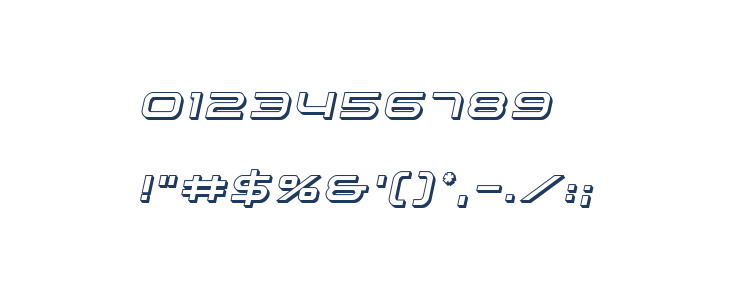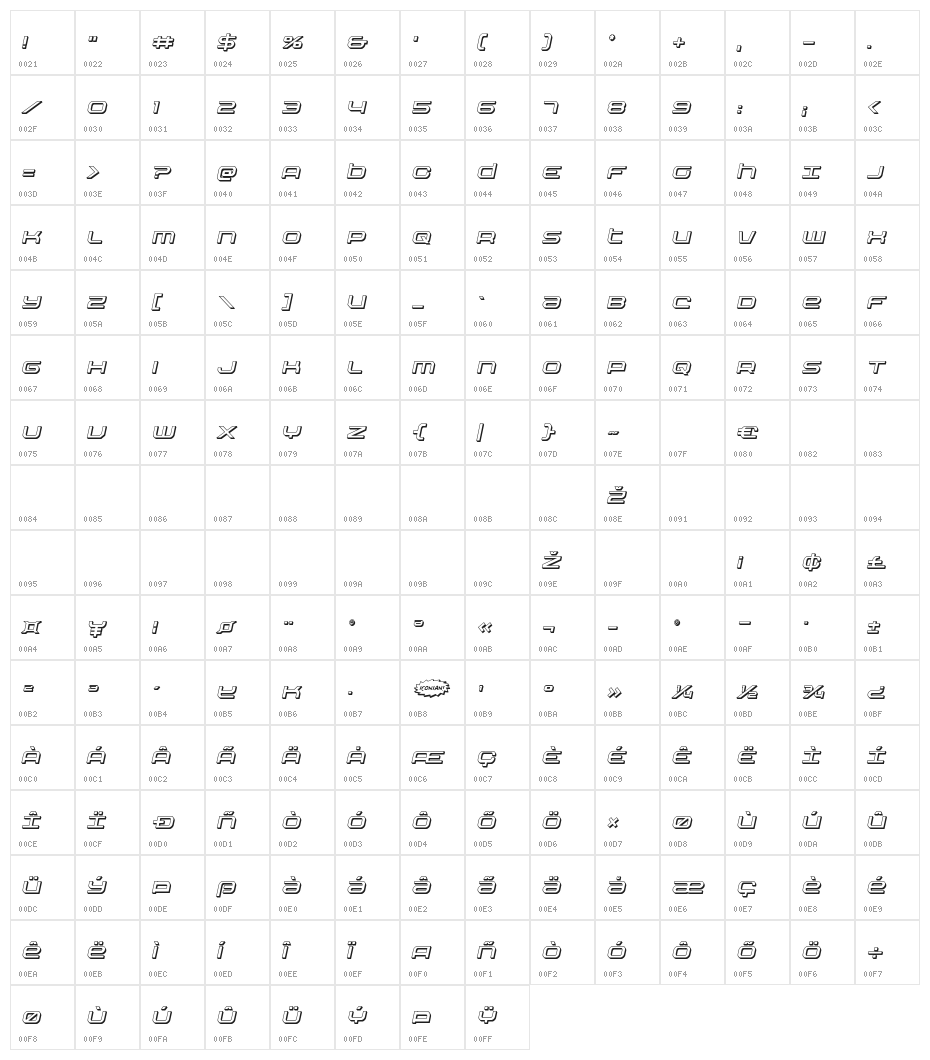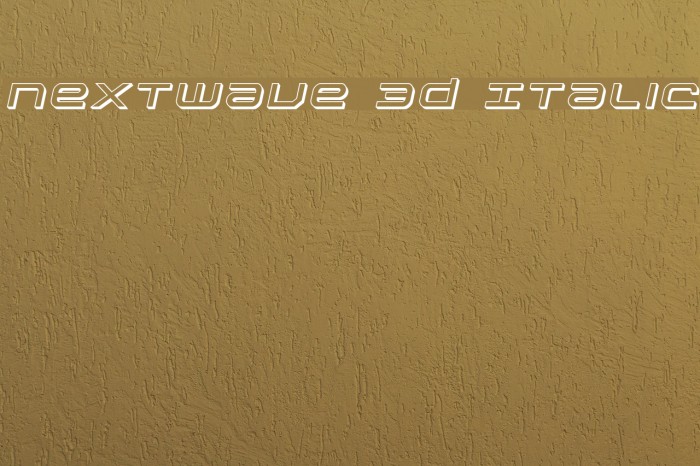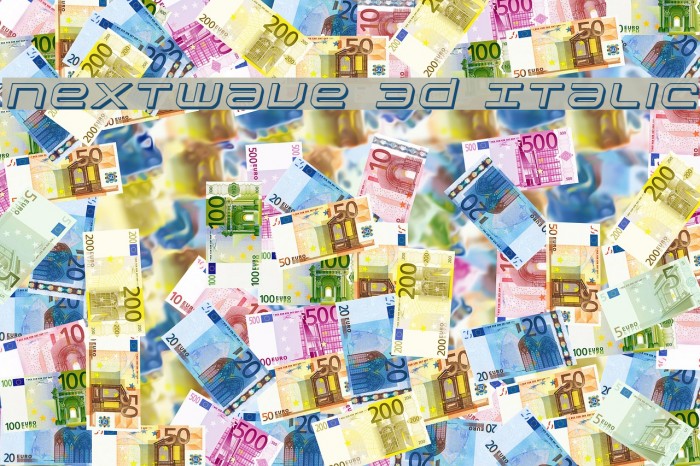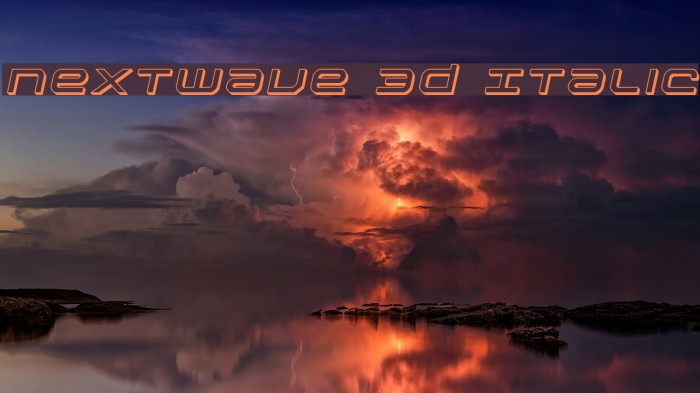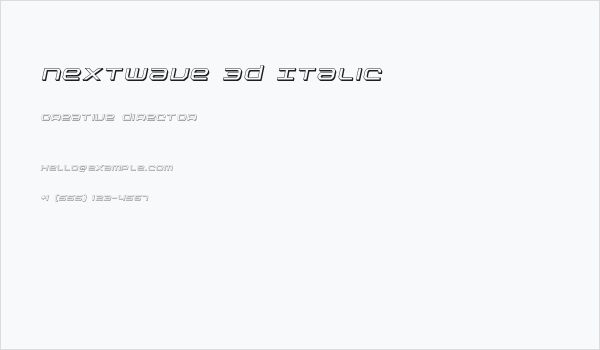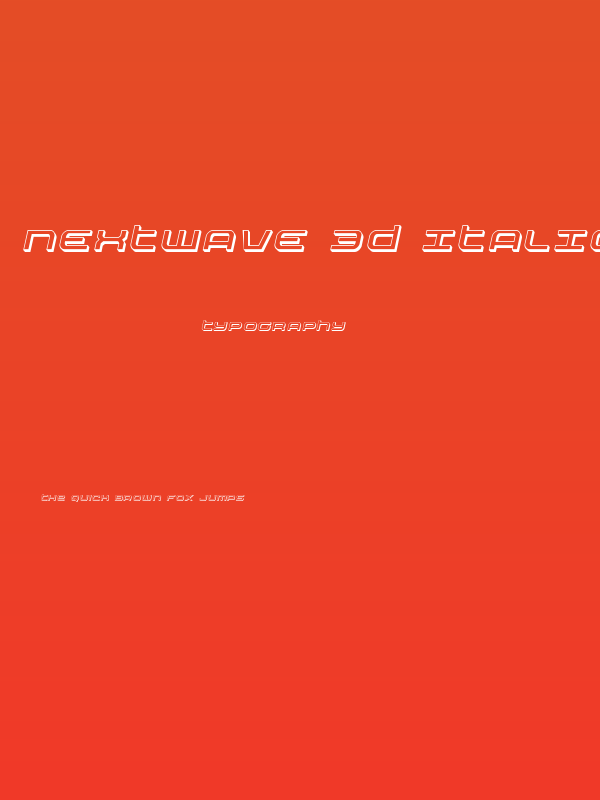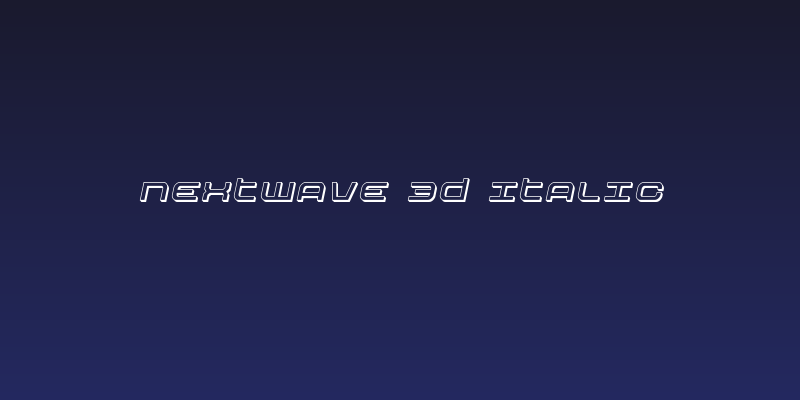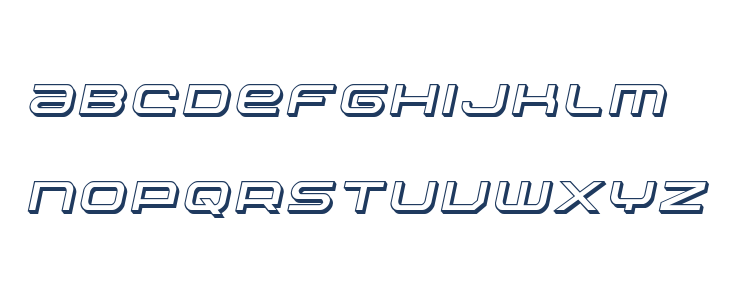
Nextwave 3D Italic Font
Nextwave 3D Italic Description
This font features a futuristic and dynamic design with a 3D effect that gives it a sense of depth and movement. The characters are italicized, adding a sleek and forward-leaning appearance. The strokes are consistent in thickness, contributing to a uniform and cohesive look. The font includes both uppercase and lowercase letters, numerals, and a variety of special characters, making it versatile for different design needs. The overall style is modern and tech-inspired, suitable for projects that require a cutting-edge and innovative aesthetic.
| Proposed Projects | Ideal for technology branding, sci-fi themed designs, video game titles, and innovative product packaging. |